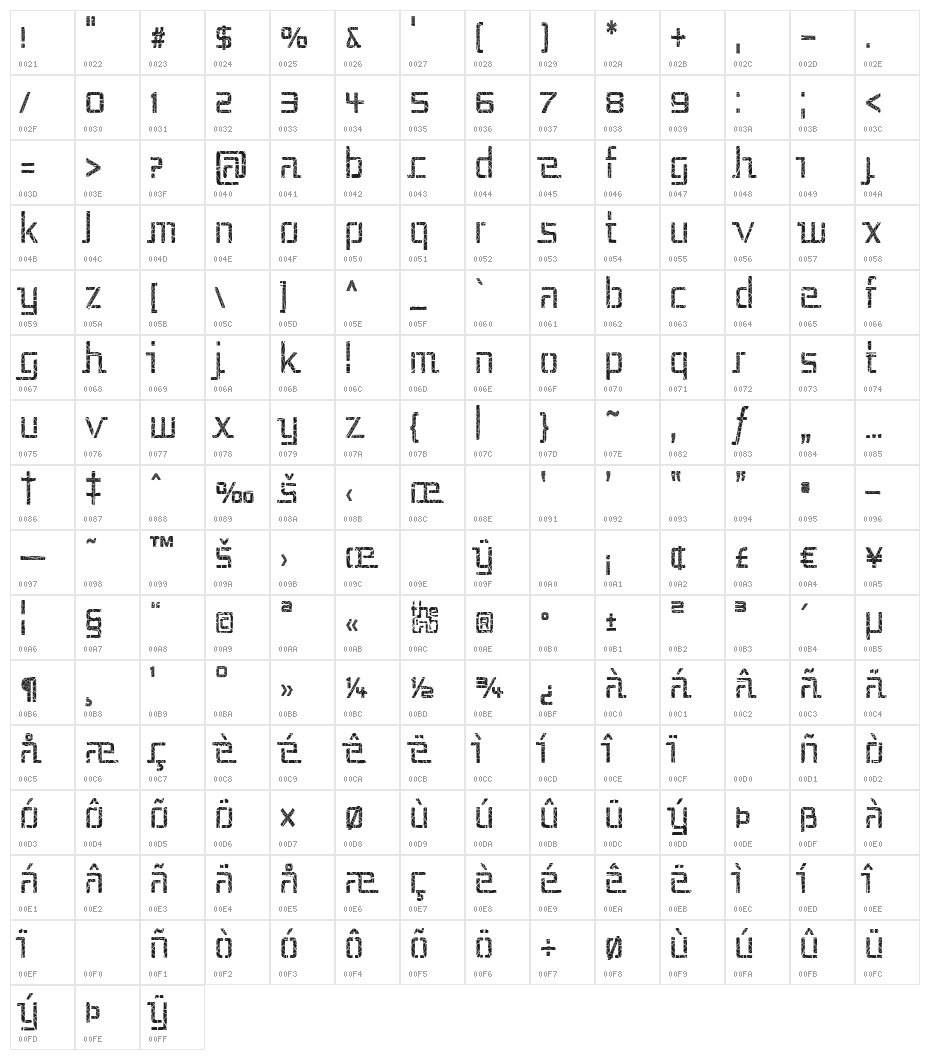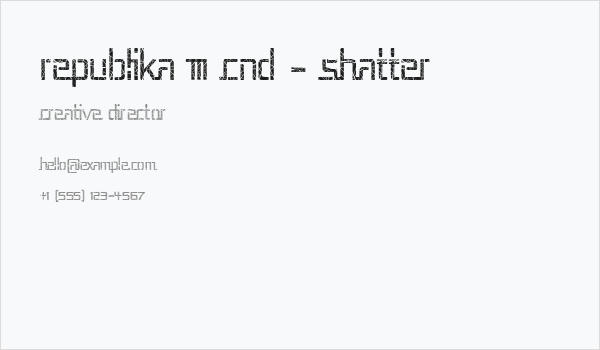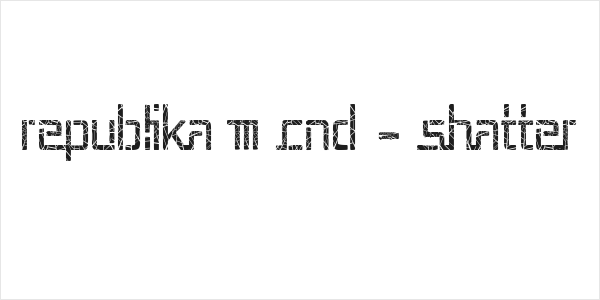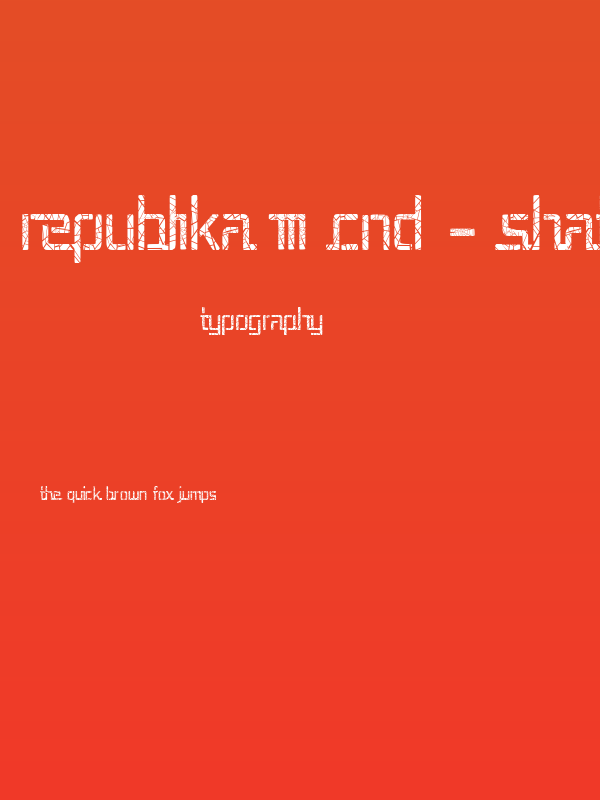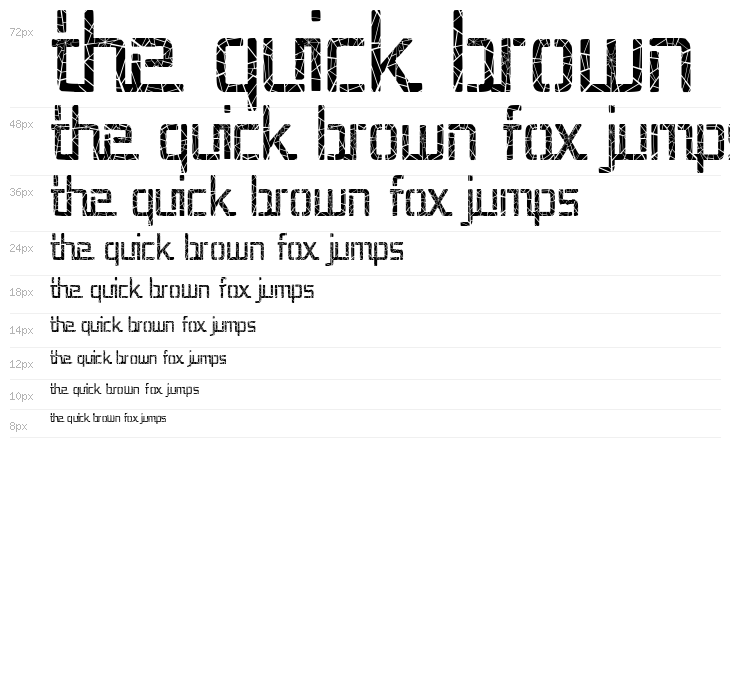
Republika III Cnd - Shatter Font
Republika III Cnd - Shatter Description
This font features a unique shattered glass effect, giving it a dynamic and edgy appearance. The characters are constructed with a geometric, angular style, creating a sense of fragmentation and movement. Each letter is composed of sharp, broken segments that mimic the look of cracked surfaces. This design choice adds a layer of complexity and visual interest, making it stand out in any design project. The font maintains a consistent structure across both uppercase and lowercase letters, as well as numbers and special characters, ensuring readability despite its decorative nature.
| Proposed Projects | Ideal for edgy branding, album covers, posters, and digital artwork that require a bold, fragmented look. |